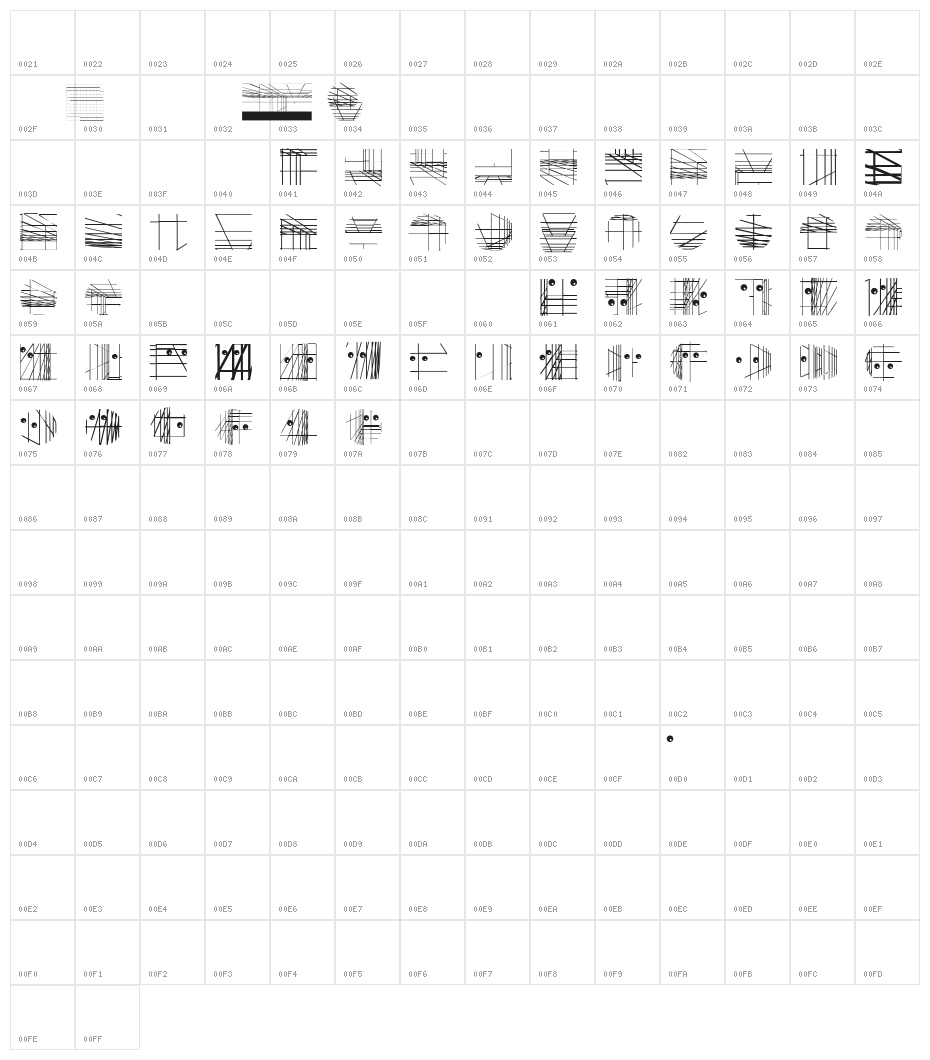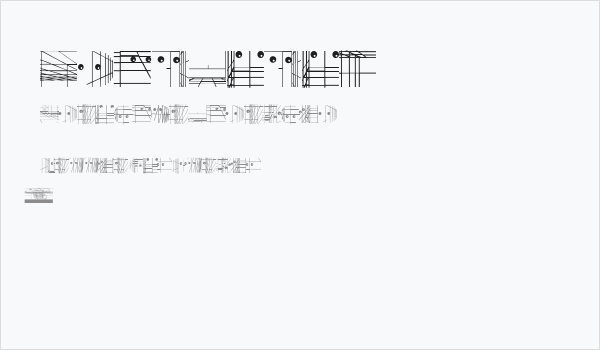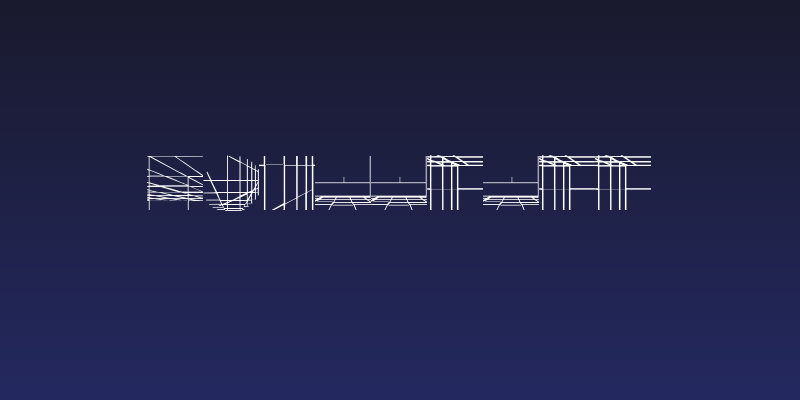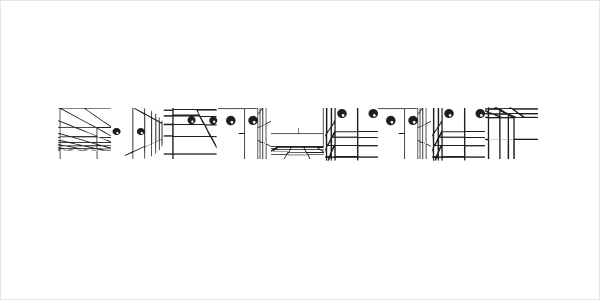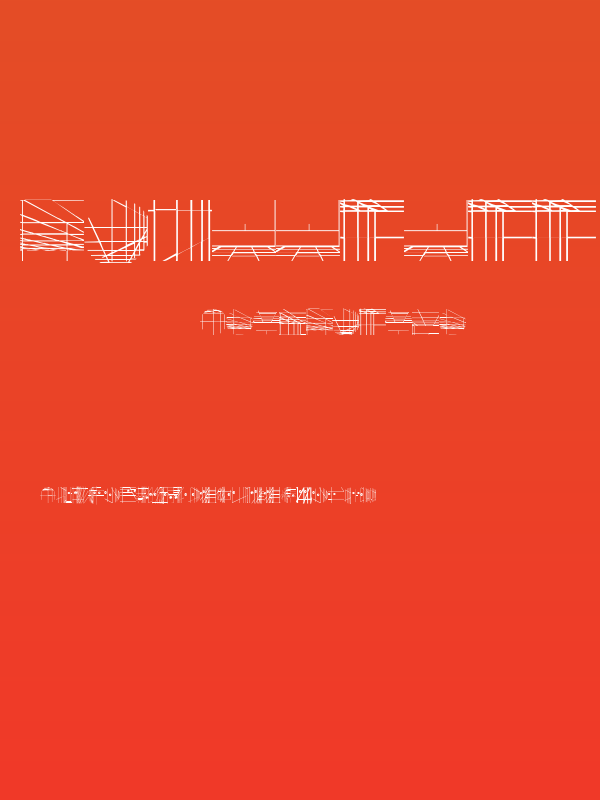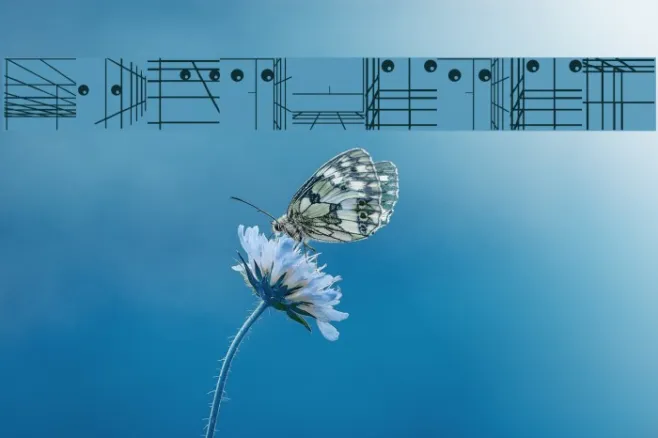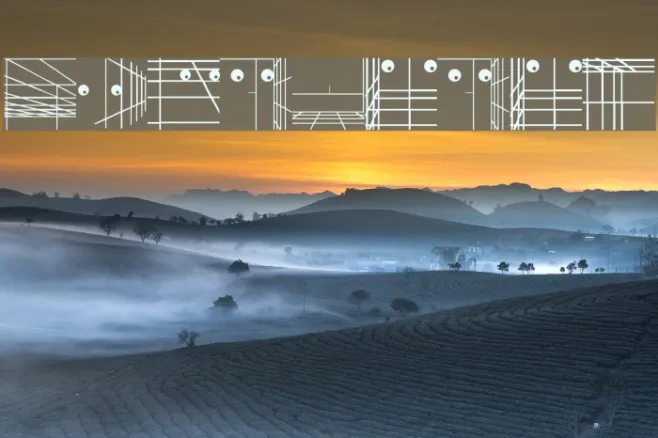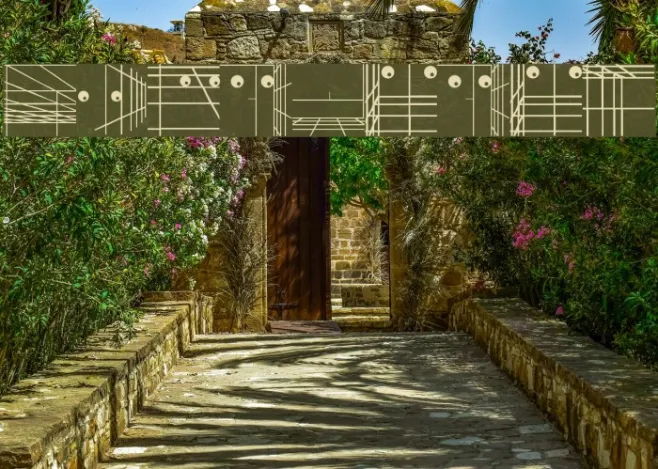
GridDadaA Font
GridDadaA Description
This font is an abstract and highly artistic design, characterized by a complex arrangement of lines and geometric shapes. Each character is constructed with intersecting lines and patterns that create a sense of depth and movement. The font is not intended for readability but rather for visual impact and artistic expression. It resembles a piece of modern art more than a traditional typeface, making it suitable for creative and experimental projects. The intricate design of each character suggests a focus on form over function, with a unique and avant-garde aesthetic.
| Overall Style | Modern, Artistic |
| Use Case | Logos, Art projects, Experimental design |
| Proposed Projects | Ideal for art installations, experimental design projects, and creative branding that seeks to make a bold visual statement. |